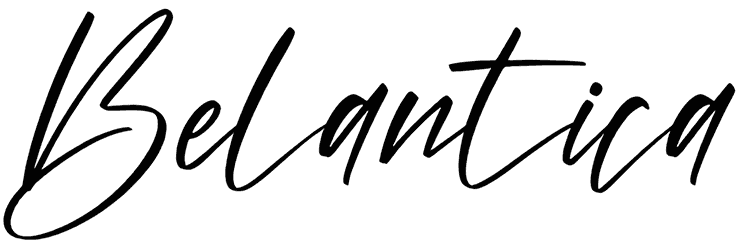
Belantica Font
Easier than ever, make a romantic quality for your texts with Belantica. Next thing you know, you’ve gotten every eye glued to the effect of your creation. The natural outline couldn’t be any plainer in pointing out any displays with a smooth character.
This signature font, via its two styles, can put on an alarming face and look gorgeous. The warm items make this script font one of the best for designing postcards, social media posts, T-shirts, and things alike.